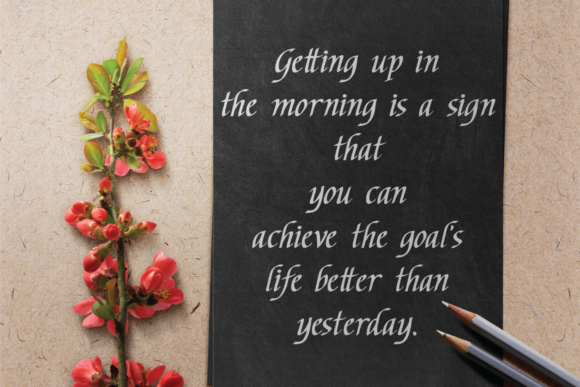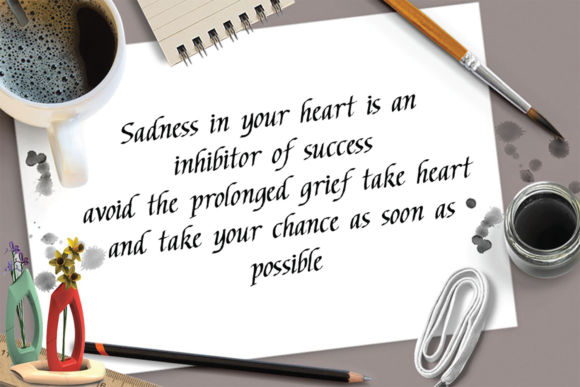
Chancery Stars Font
db-ku.com - Script & Handwritten -- Chancery Stars is a cool and distinct script font. Whatever the topic, this font will be a wonderful asset to your font library, as it has the potential to enhance any creation.